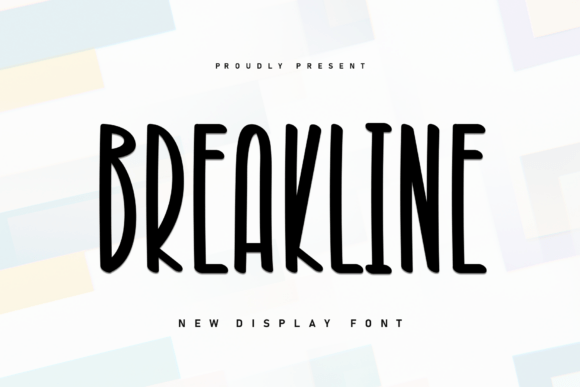
The Breakline Font: Elevating Your Design with Modern Verticality
I’ll never forget the design struggle I faced while working on a magazine project. My editor wanted a bold, eye-catching headline that would fit within a narrow sidebar, but still convey a sense of sophistication and style. After scouring font libraries and marketplaces, I stumbled upon the Breakline font. Its sleek, condensed design and commanding silhouette immediately caught my attention. I was hooked! In this article, I’ll share my experience with the Breakline font, its features, and how to make the most of it in your designs.
A Closer Look at Breakline
The Breakline font is a modern, condensed display face that embodies clean lines, a tall stature, and a unique blend of technical and organic feel. Its uniform stroke weight and rounded terminals make it incredibly versatile for various design applications, from tech branding to lifestyle content.
- ✅ Clean and sleek design: Perfect for modern designs that require a bold, yet refined aesthetic.
- ✅ High readability: Despite its condensed width, Breakline remains highly legible, even at smaller sizes.
- ✅ Technical-meets-organic feel: The font’s unique blend of straight lines and rounded terminals gives it a distinctive character.
- ✨ Versatility: Breakline excels in various design environments, from magazine sidebars to modern architectural branding.
- ✨ Pairing options: The font pairs well with ultra-wide, minimalist sans-serifs, creating a high-contrast typographic hierarchy.
- ✨ Impactful headlines: Breakline’s tall stature and bold design make it perfect for creating attention-grabbing headlines.
While Breakline is an exceptional font, there are a few minor considerations to keep in mind:
- ⚠️ Limited use in body text: Due to its condensed design, Breakline may not be the best choice for lengthy body text.
- ⚠️ Some letter combinations: Certain letter combinations, such as “fi” or “fl,” may require manual kerning for optimal results.
- 🤔 Glyph limitations: While Breakline has a wide range of glyphs, it may not have every special character or symbol you need.
The Breakline font was designed with the goal of creating a modern, versatile typeface that would excel in various design environments. Its unique blend of clean lines, technical feel, and organic terminals makes it an excellent choice for designers seeking a bold, yet refined aesthetic.
| Font Name | Breakline Font |
| Author | KC Production |
| What is the best use for Breakline? | Breakline excels in designs that require a bold, yet refined aesthetic, such as magazine sidebars, modern architectural branding, and tech branding. |
| Can I use Breakline for body text? | While Breakline is highly legible, its condensed design may not make it the best choice for lengthy body text. |
| Is Breakline suitable for digital use? | Yes, Breakline is optimized for digital use and can be used in various digital applications, including websites, social media, and presentations. |
| Can I use Breakline for print materials? | Absolutely! Breakline is a versatile font that can be used in various print materials, including magazines, posters, and brochures. |